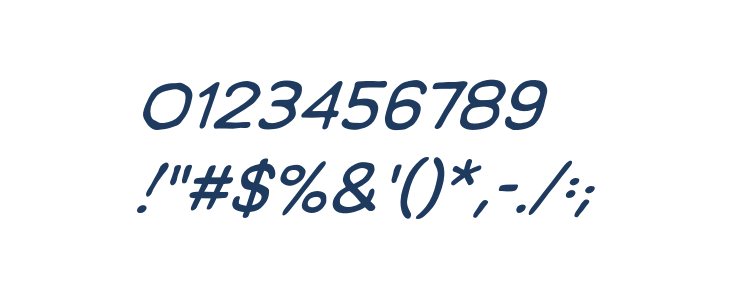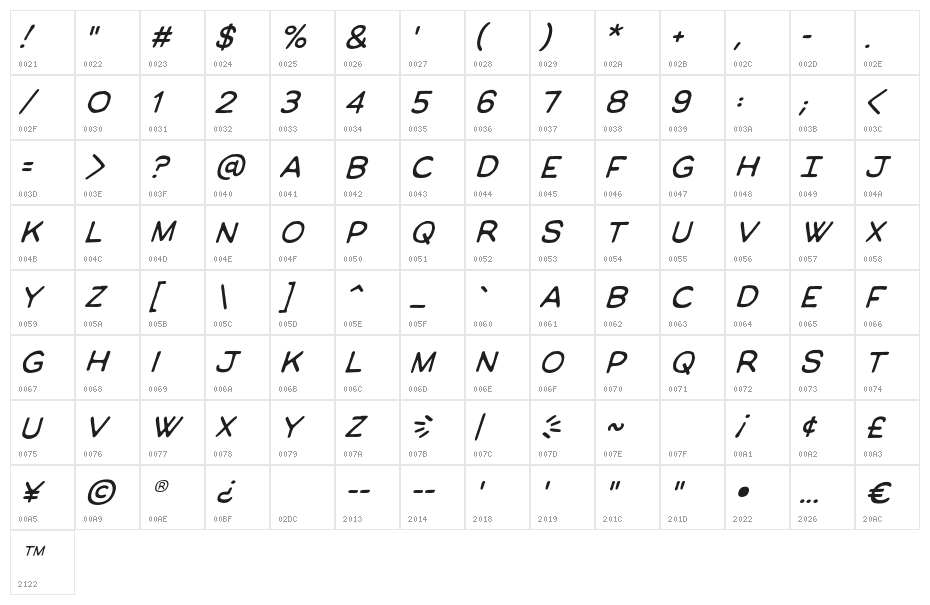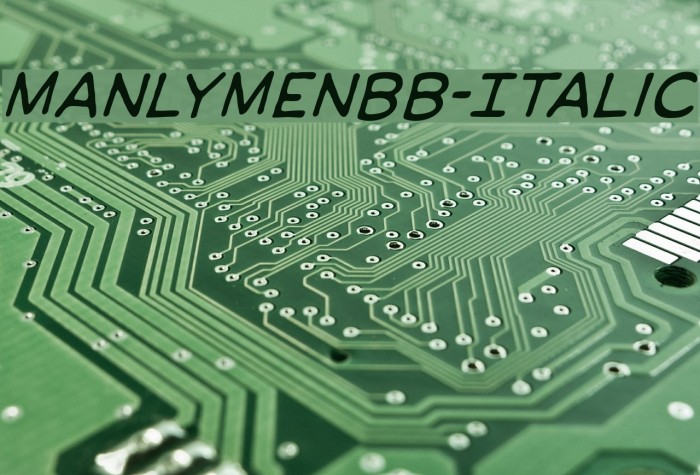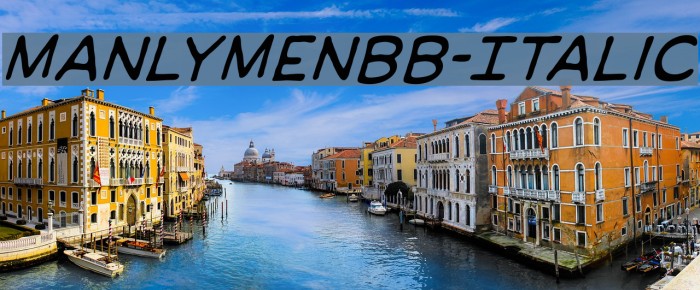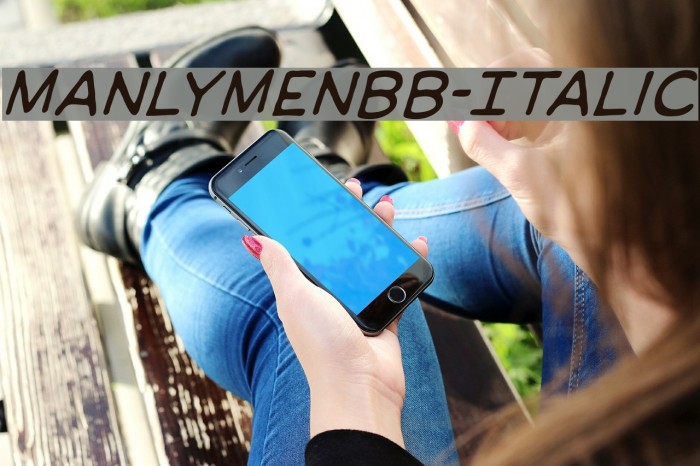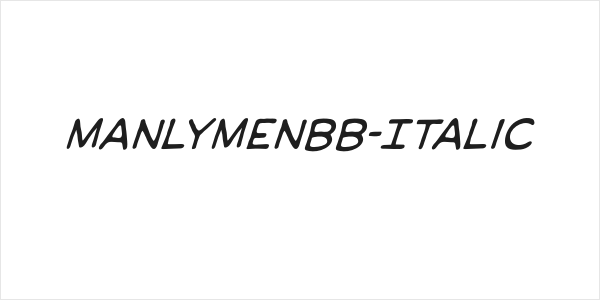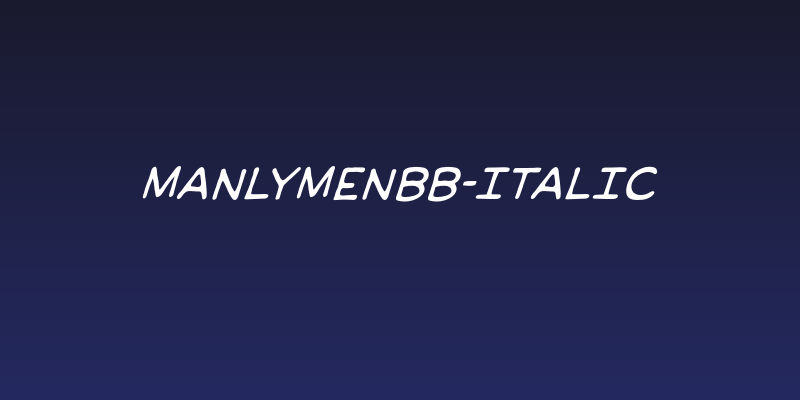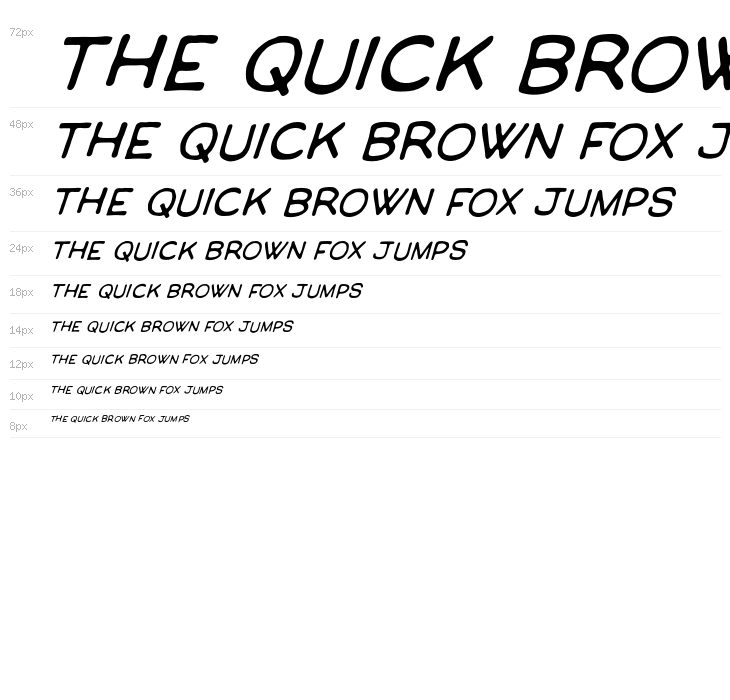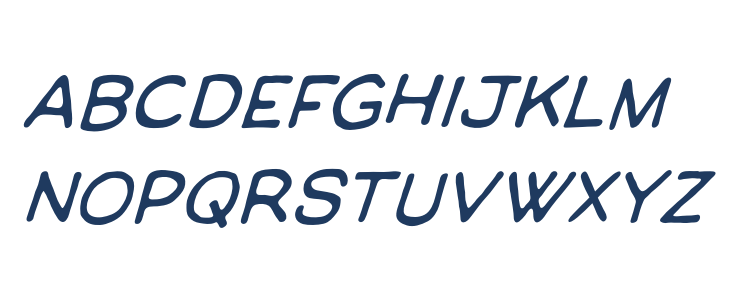
ManlyMenBB-Italic Font
ManlyMenBB-Italic Description
This font features a bold and dynamic italic style, characterized by its slanted and fluid letterforms. The strokes are consistent and smooth, giving it a sense of movement and energy. The uppercase and lowercase letters maintain a uniform style, with rounded edges and a slightly condensed appearance. The numerals are bold and clear, ensuring readability. Special characters are well-integrated, maintaining the overall aesthetic. This font exudes a modern and sporty vibe, making it suitable for projects that require a strong and energetic presence.